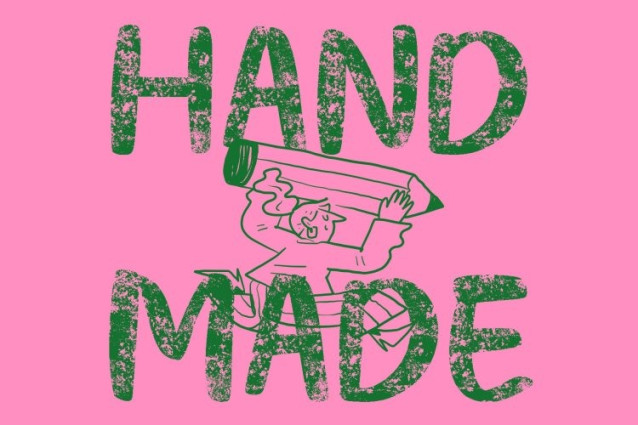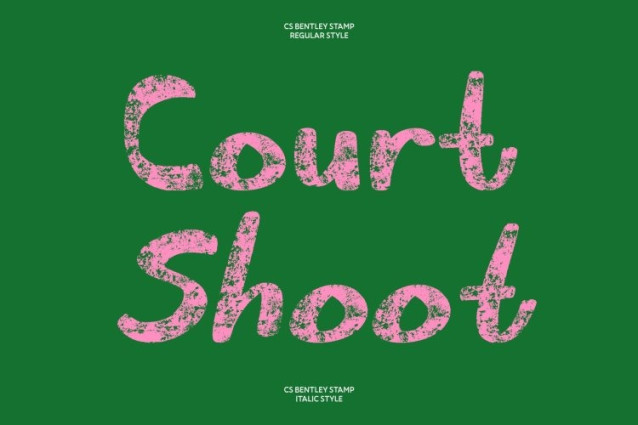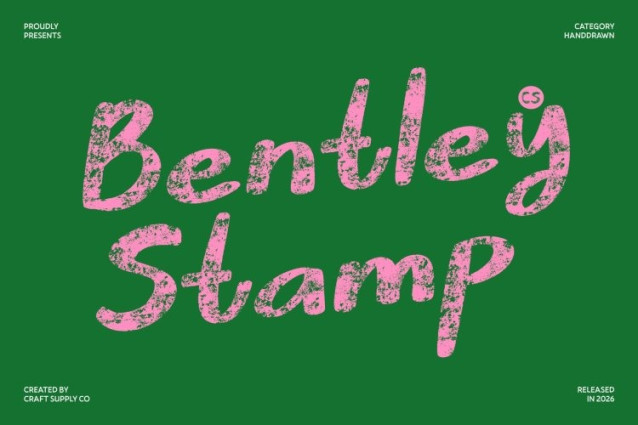
CS Bentley Stamp Font This is a soft handwritten font that captures the natural rhythm of gentle pen strokes, enriched with a subtle stamp texture. The flowing letterforms feel smooth and organic, while the stamped finish adds a slightly worn, tactile quality creating typography that feels personal, heartfelt, and authentically handmade.
Warm Texture with Natural Imperfections
The stamped effect introduces delicate imperfections that enhance the font’s warmth and realism. Rather than appearing overly polished, each character feels human and expressive, as if written by hand and pressed onto paper. This textured detail adds depth and charm, giving designs a comforting, genuine presence.
Perfect for Personal Branding and Expressive Quotes
This font shines in projects that value emotional connection and personality. Ideal for personal branding, signature-style logos, creative quotes, and social media visuals, this font communicates sincerity and closeness. Its handwritten softness paired with vintage texture makes messages feel relatable and emotionally engaging.
Ideal for Handmade Designs
Whether used for greeting cards, or relaxed print layouts, this font brings effortless charm and warmth. The combination of soft handwriting and stamped texture creates a friendly, nostalgic tone perfect for designs that aim to feel meaningful, intimate, and beautifully imperfect.